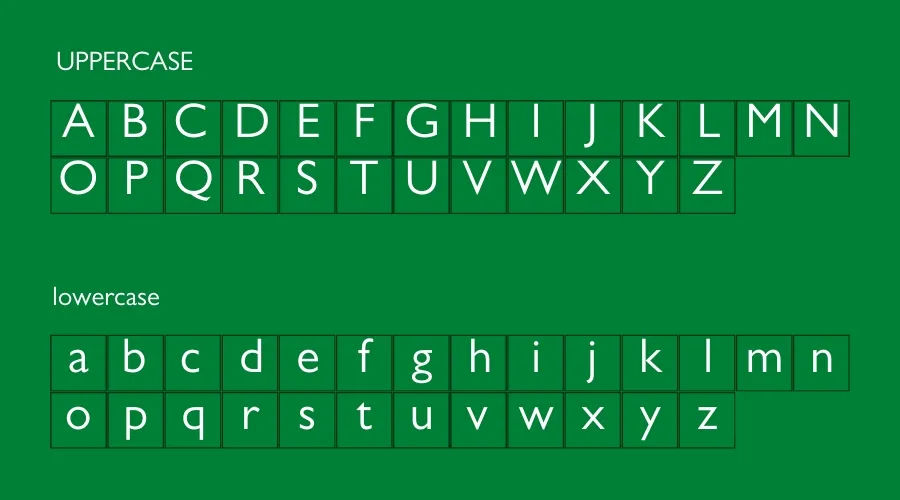
About Gill Sans Font
The font style may shift depending on the letters chosen. A few font styles don't recognize unique characters or were made for a one-off activity. To assess the font, in this segment there's a set of 31 extraordinary characters or with highlights, 26 letters of the letter set in upper and lower case, and the numbering from 1 to 10.